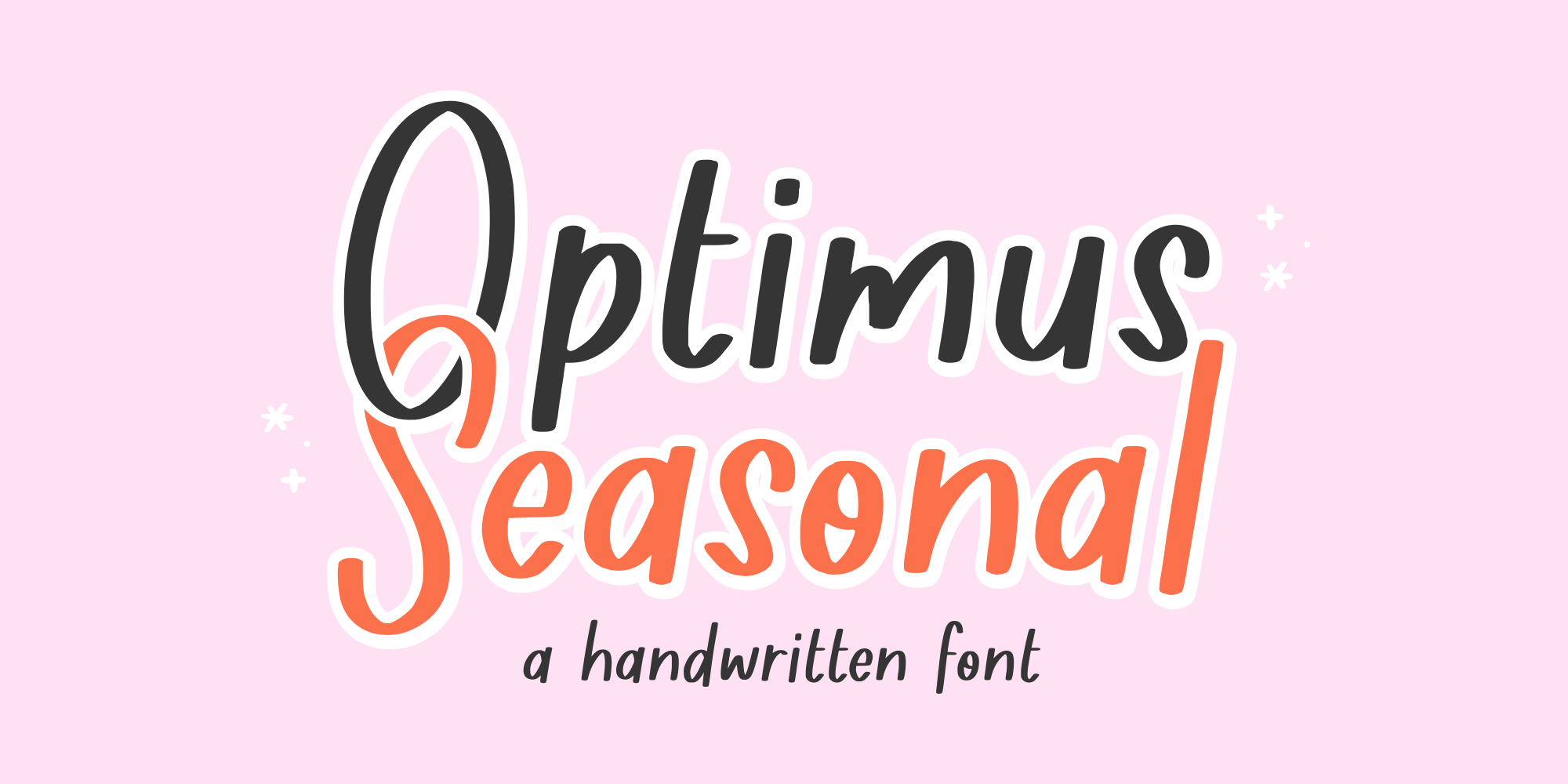
Optimus Seasonal Font is perfect for various design applications including seasonal marketing campaigns, holiday retail promotions, weather-based advertising, seasonal restaurant menus, climate-responsive branding, year-round event materials, seasonal fashion collections, and adaptive marketing communications that require optimal seasonal sophistication and adaptive elegance.
What makes Optimus Seasonal Font truly exciting is its revolutionary adaptive design that captures the optimal expression of seasonal beauty and climate responsiveness, embodying the perfect balance and seasonal harmony that allows brands to communicate effectively throughout the changing seasons while maintaining consistent brand identity and optimal visual impact. This innovative typeface features carefully calibrated letterforms with seasonal adaptability that evoke images of nature's perfect timing, seasonal transitions, and the optimal conditions that define each season's unique character and atmospheric beauty. The font's adaptive character reflects the precision and flexibility required for successful seasonal marketing, making it perfect for brands that want to communicate seasonal optimization, adaptive excellence, and the sophisticated understanding of seasonal consumer behavior that drives successful year-round marketing strategies. Its seasonal appearance creates immediate associations with optimal timing and seasonal sophistication.
The Optimus Seasonal Font family includes multiple weights and seasonal variations designed to enhance adaptive communication. The collection features Light, Regular, Medium, Bold, and Black weights, each maintaining the font's characteristic seasonal appeal while offering different levels of optimal presence. The family also includes alternate characters with varying seasonal effects, climate-responsive elements that simulate seasonal changes, and stylistic sets that create dynamic text arrangements reflecting the optimization of seasonal marketing. Additional features include contextual alternates and seasonal ligatures that enhance the authentic, adaptive appearance.
Marketing and retail professionals consistently choose Optimus Seasonal Font Free Download for projects requiring authentic seasonal character and adaptive credibility. The font's optimal nature makes it particularly effective for retail brands, seasonal businesses, and marketing agencies targeting consumers who respond to seasonal messaging and climate-appropriate communications. Its excellent adaptability across various applications ensures effective communication while maintaining the distinctive seasonal character that conveys marketing authority and seasonal optimization.
The advanced OpenType capabilities of Optimus Seasonal Font include contextual alternates, stylistic sets, and comprehensive character support that accommodates seasonal terminology and marketing expressions while preserving the font's authentic adaptive character. The technical precision ensures consistent seasonal appearance across different marketing applications and retail platforms.
For creative professionals seeking a typeface that embodies genuine seasonal heritage and adaptive sophistication, Optimus Seasonal Font offers unparalleled optimal appeal and marketing elegance. Its ability to convey seasonal authority while maintaining functional communication makes it invaluable for retail brands, marketing agencies, and seasonal businesses. The font's distinctive adaptive character ensures memorable seasonal impact across all applications, creating powerful visual identity systems that celebrate the optimal timing of seasonal marketing and the sophisticated understanding of consumer behavior that drives successful year-round brand communication and seasonal engagement strategies.